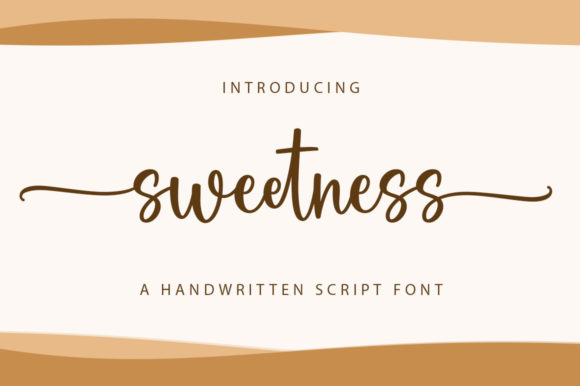
Introducing Sweetness Font, the epitome of elegance and sophistication, designed by the talented artists at Graphix Line Studio. This exquisite script font echoes the essence of grace and beauty, making it the perfect choice for your creative endeavors.
With its delicate curves and flowing lines, Sweetness Font exudes a timeless charm that captivates and enchants. Unleash your inner artist and let your imagination soar with the endless possibilities that Sweetness Font offers.